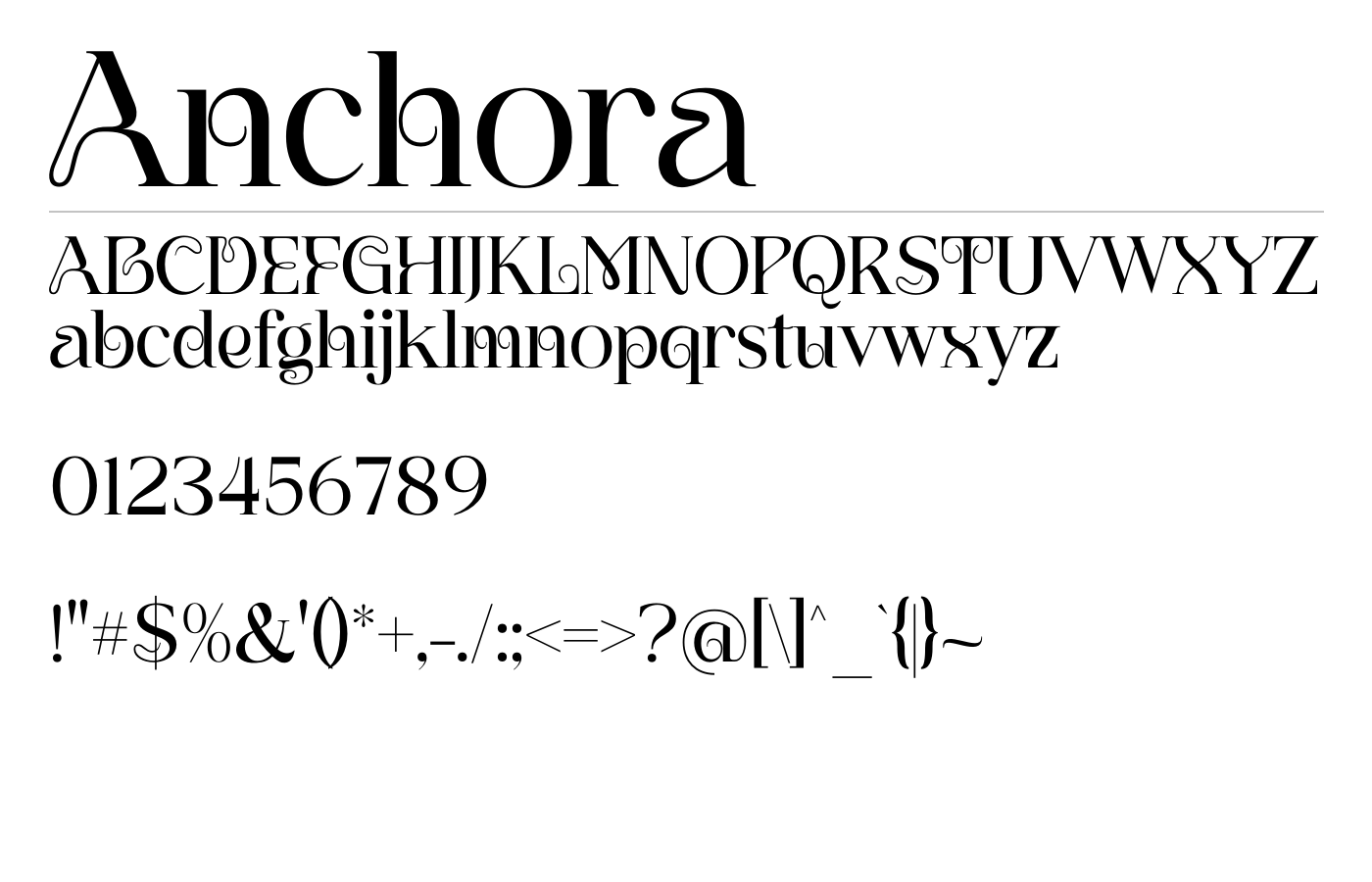
Anchora is a sophisticated serif font characterized by its high contrast strokes and elegant bracketed serifs, blending modern Didone influences with playful, artistic flourishes in select letters. Its moderate weight and tall x-height create a refined yet approachable texture, ideal for luxury branding, editorial headlines, and fashion packaging where a unique, stylish presence is desired. This font combines classic elegance with distinctive personality, making it perfect for projects that seek to stand out with a blend of tradition and creativity.
Anchora Font
About Anchora Font